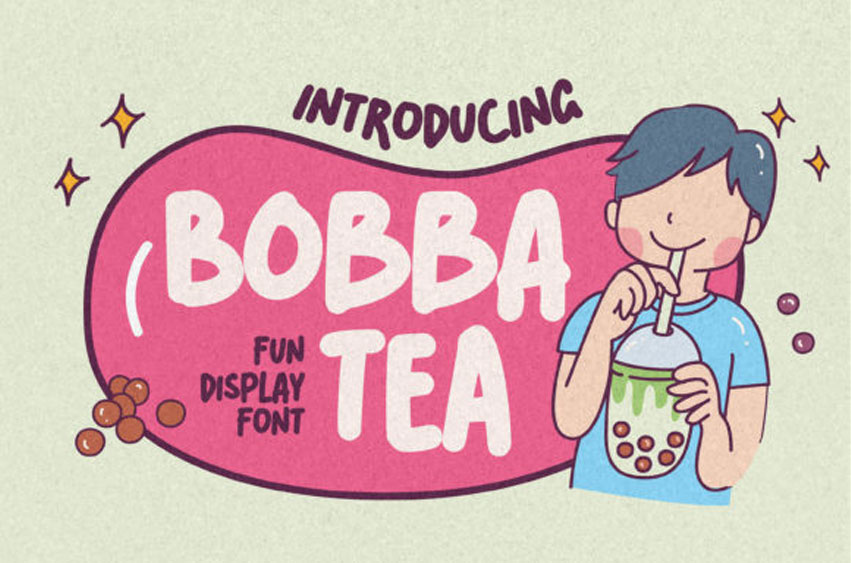
Bobba Tea Font
Bobba Tea Font is a fun and bubbly display font.
Whatever the topic, this font will be a wonderful asset to your font library, as it has the potential to enhance any creation.